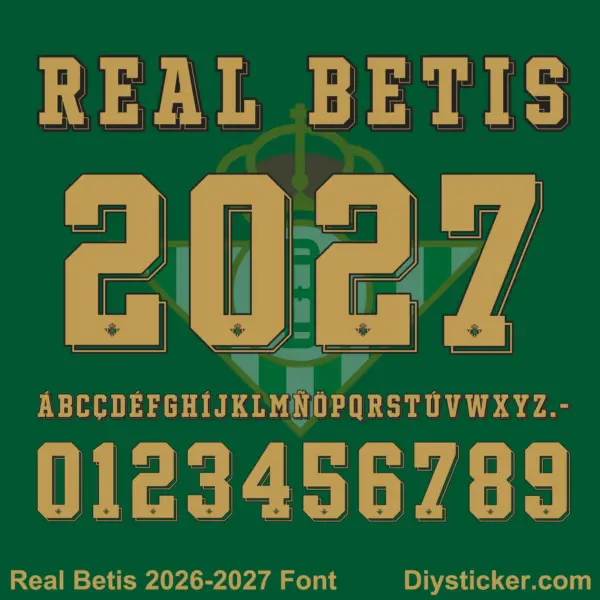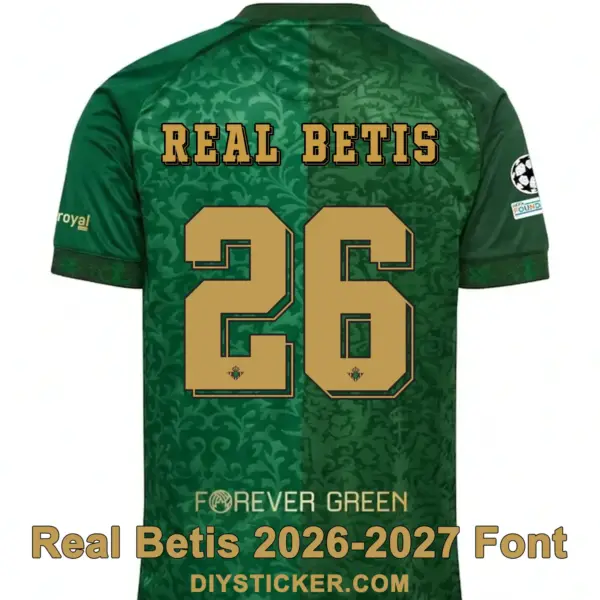
Real Betis 2026-2027 Font & Numbers Download
Equip your workshop floor with the verified Real Betis 2026-2027 font master file bundle, engineered specifically for custom uniform printers, sports apparel shops, and football jersey collectors. This premium digital asset delivers a perfect recreation of the classic collegiate block-style typography, gold-and-black 3D bevel shading, and inner inline detailing deployed by Los Verdiblancos. Bypass the time-consuming process of manually tracking low-fidelity photos—our production-ready assets provide installable desktop system typefaces and clean cutting vectors for immediate download right after checkout.
Club-Accurate Details: Captures the distinct athletic slab serifs, gold/black drop-shadow offsets, and official baseline Real Betis club crest emblem placeholders.
Premium Real Betis 2026-2027 Font & Numbers Archive
In the fast-paced custom teamwear manufacturing and classic kit restoration sectors, having access to sharp, verified club assets heavily influences your production speed and business profitability. Real Betis’ historic green-and-white shirts demand absolute typographic accuracy to preserve authentic retail value. This commercial-grade Real Betis 2026-2027 font repository serves as an industry-grade toolkit for modern print shops. Instead of guessing stroke weights, bevel angles, or offset drop-shadow depths, your workshop floor can instantly import production-ready digital tracks to output high-fidelity namesets.
True Replica Detailing: Every asset accurately maps the unique character tracking, bold slab-serif profiles, inner inline cuts, and precise baseline club crest emblem markers required for collector-grade apparel customization.